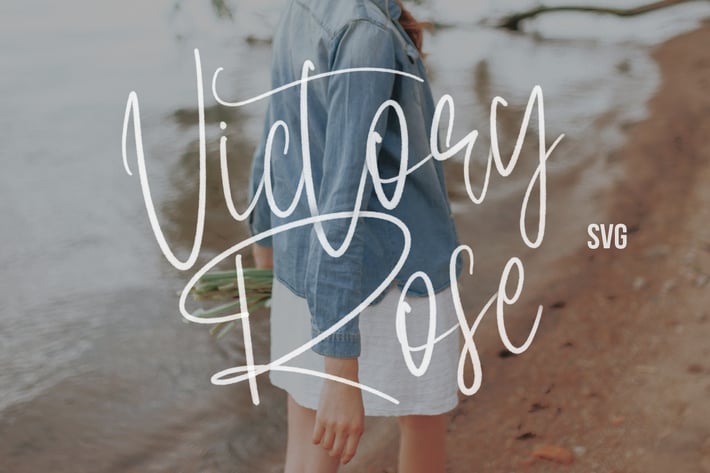
Victory Rose SVG Brush Font
Give your designs an authentic brush handcrafted feel. "Victory Rose" is perfectly suited to signature, stationery, logo, typography quotes, magazine or book cover, website header, flyer, clothing, branding, packaging design and more.